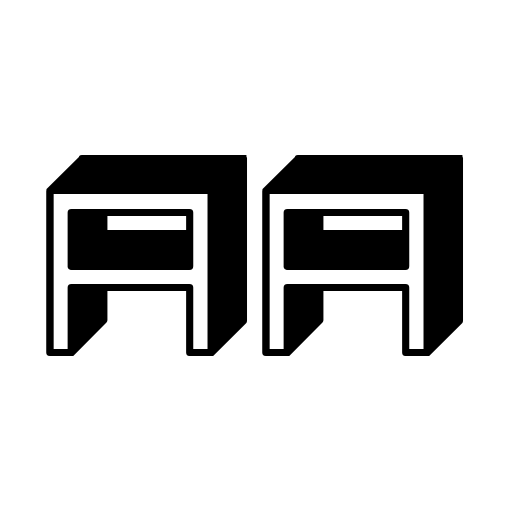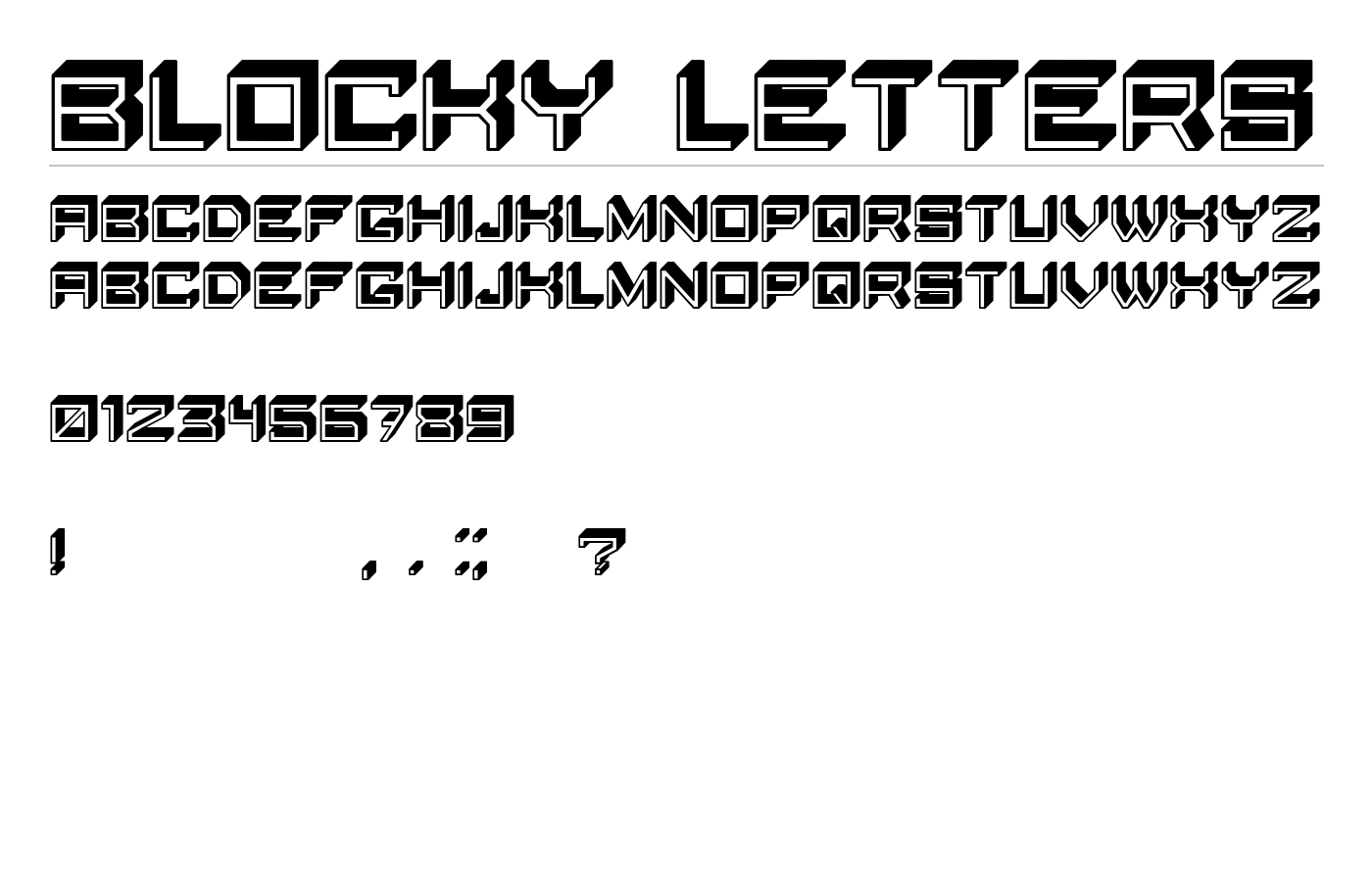
Blocky Letters is a bold, geometric sans serif font characterized by thick, block-like letterforms with a distinct three-dimensional shadow effect. Its uppercase-only design and strong, angular shapes give it a modern, industrial feel, making it perfect for eye-catching headings, logos, and designs that require a playful yet sturdy presence. This font works well in posters, packaging, and branding where a striking, architectural style is needed to convey strength and creativity.
Blocky Letters Font
About Blocky Letters Font